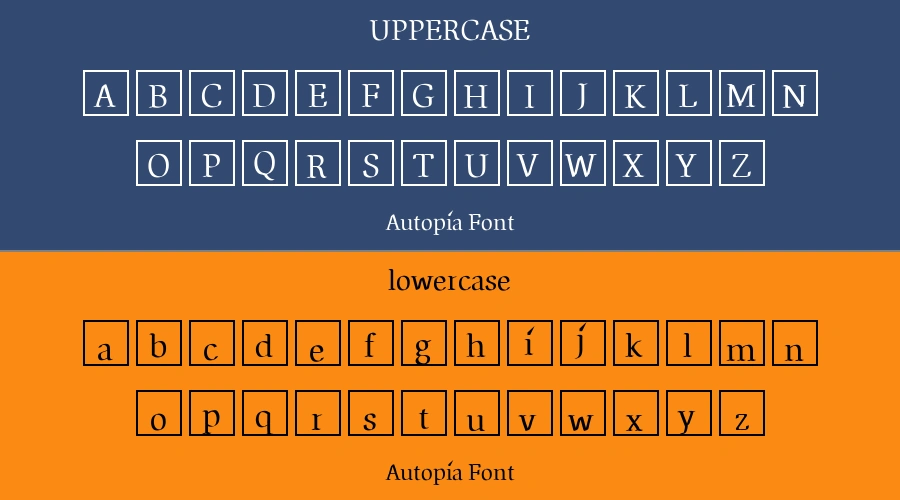
About Autopia Font
Autopia Font stands out for its distinctive combination of exaggerated serifs and consumer engagement. Ideal for product packaging, it provides the reliability and market confidence that professional projects demand. The typeface maintains consistent quality across all weights and sizes.
Key features include refined rounded corners and practical swash characters, enhancing typographic expression. In image captions applications, Autopia Font demonstrates exceptional brand recognition. The x-height and personality contribute to its distinctive character and professional appeal.